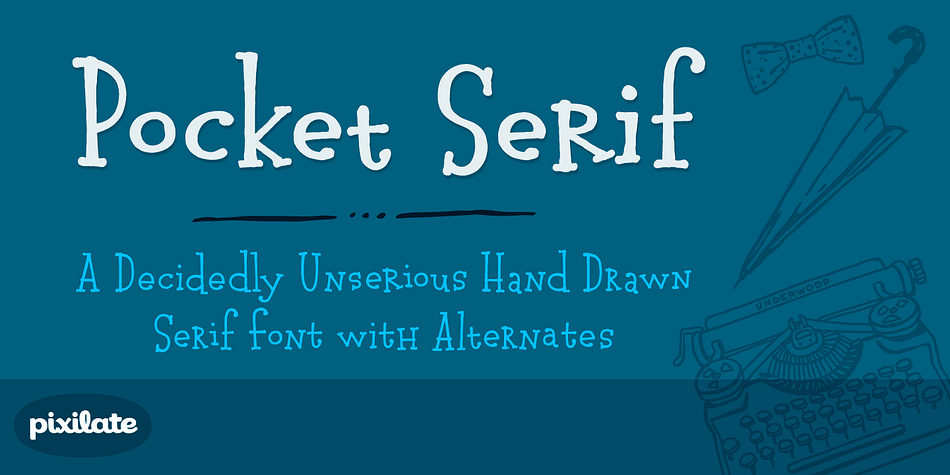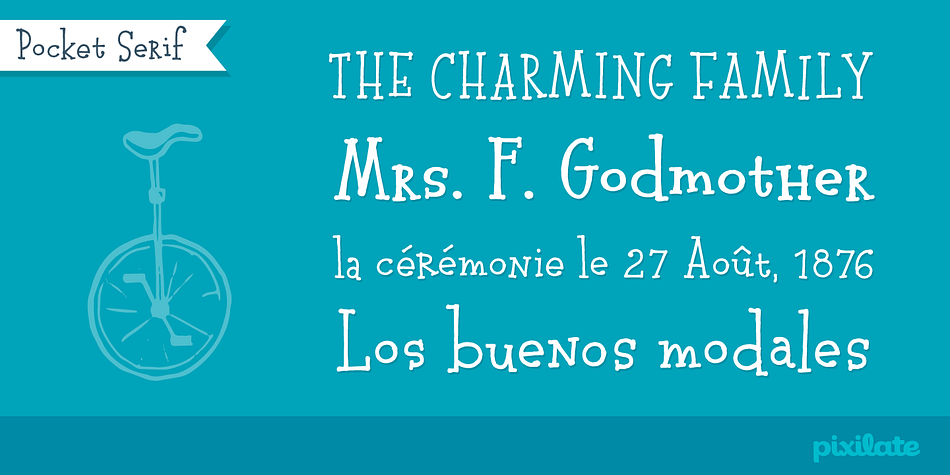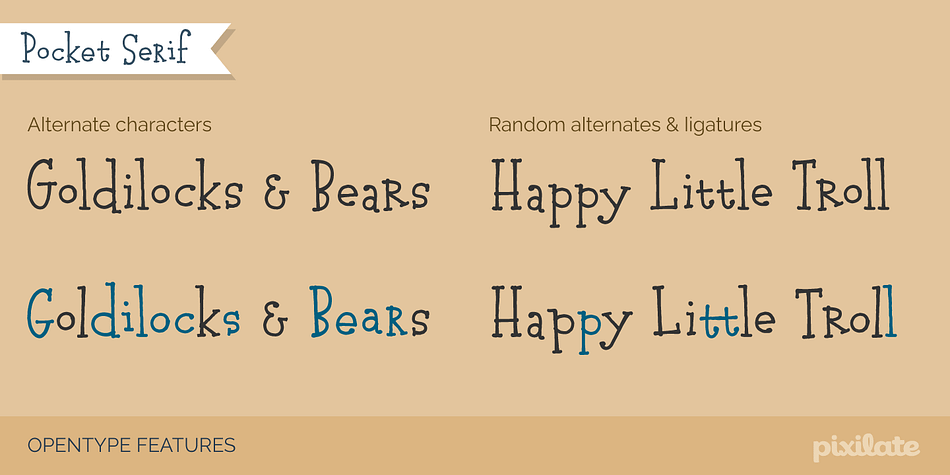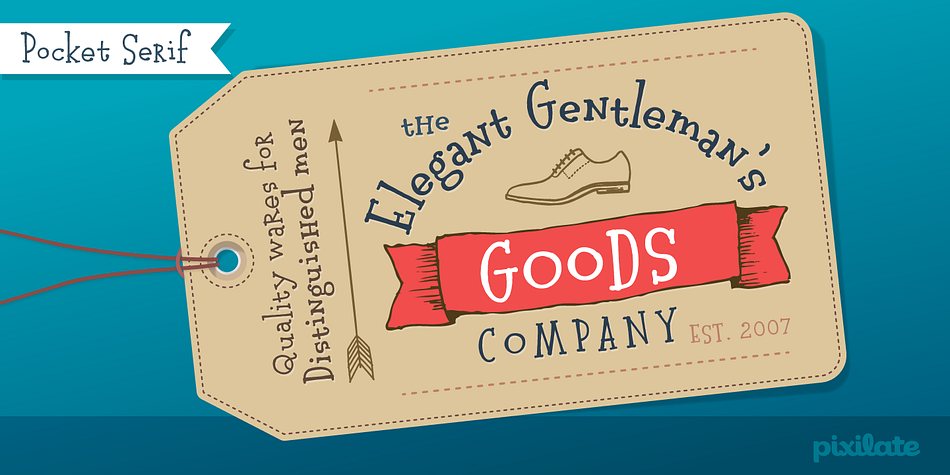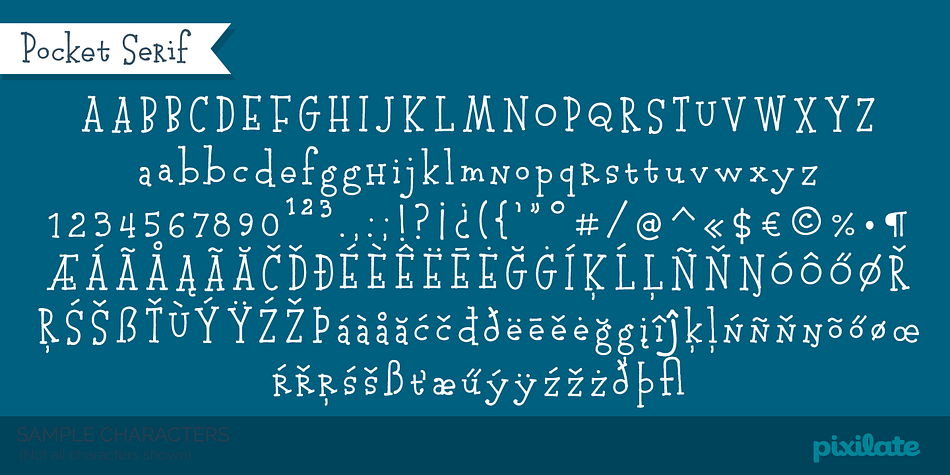
Pocket Serif Px
Pocket Serif Px is a hand drawn font family. This typeface has two styles and was published by Pixilate.
This hand drawn serif font is perfect for giving a fun touch to your projects. It combines a handmade look and rough texture with classic serif forms. It has support for most western and central European languages, and has alternates for most letterforms accessible through Opentype features, allowing for variations that make it look authentically hand-drawn.